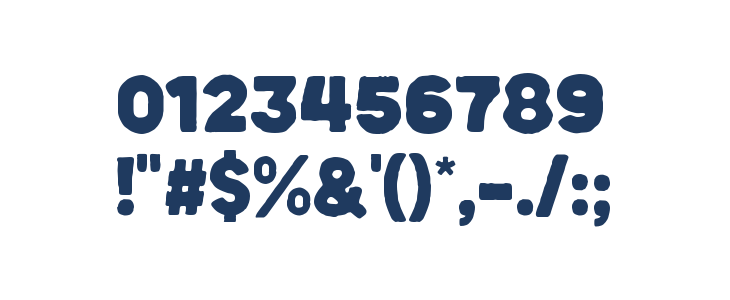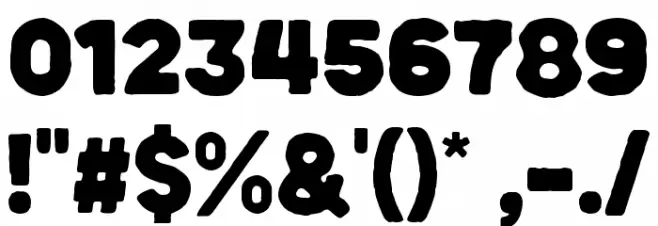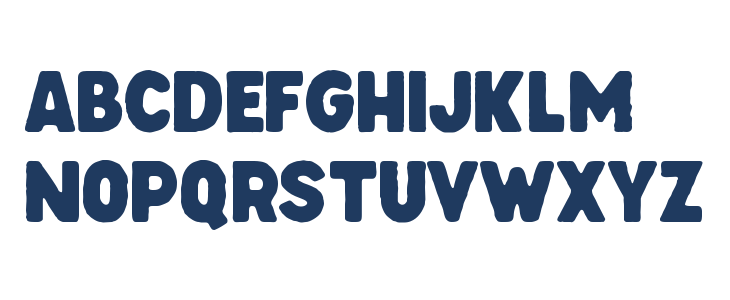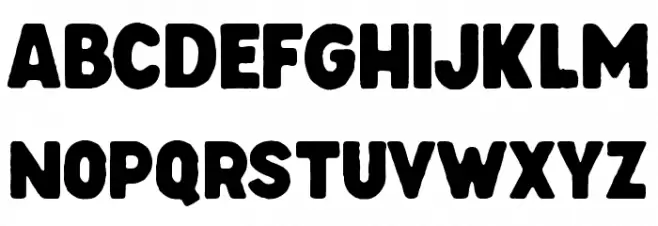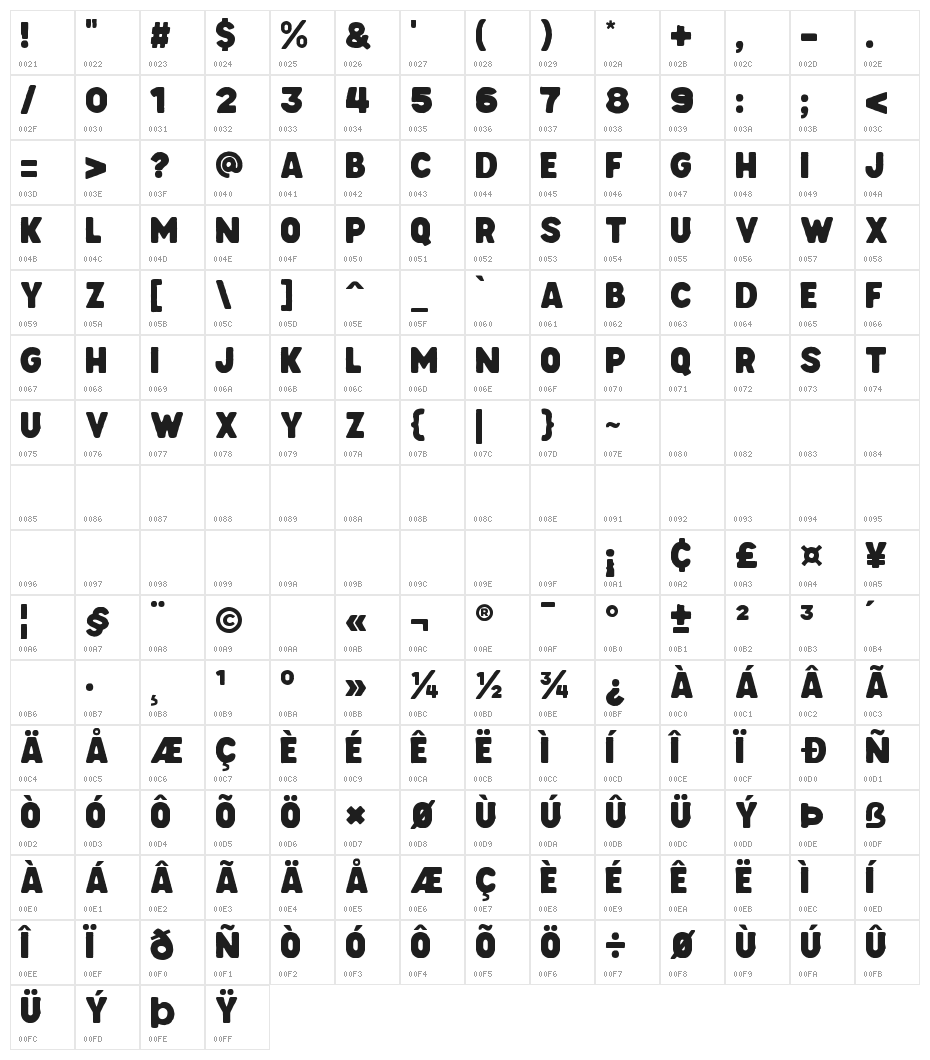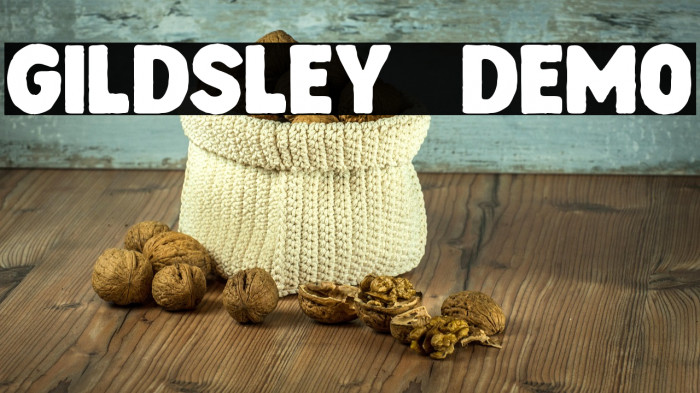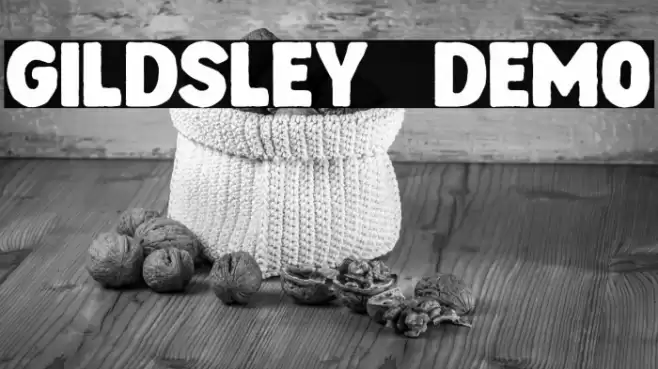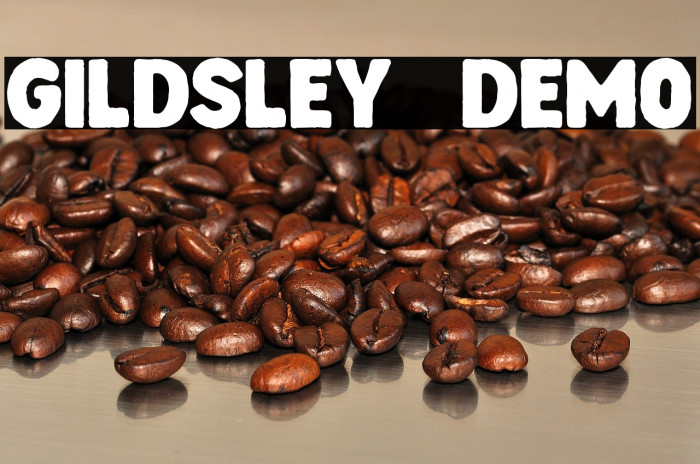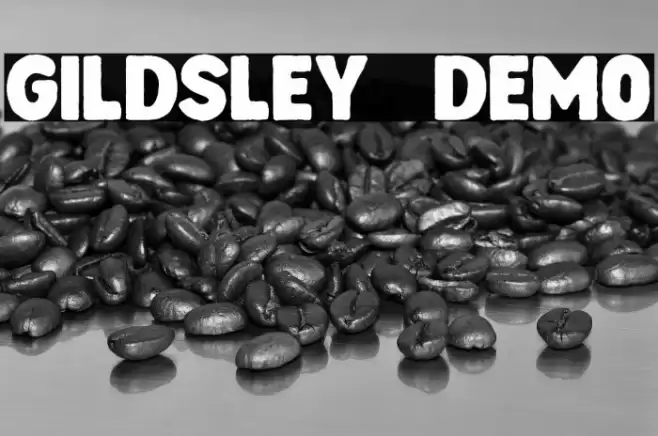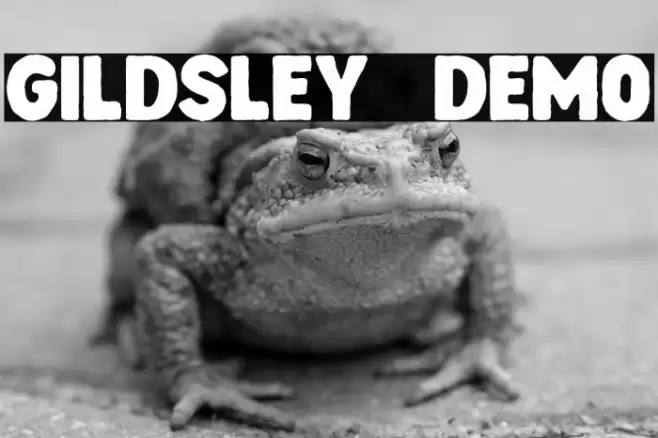
Gildsley DEMO Font
Gildsley DEMO Description
A bold, playful sans-serif font with rounded edges and irregular, hand-drawn shapes, giving it a lively and informal appearance. The characters are thick and closely spaced, with a consistent stroke width and a slightly uneven baseline.
| Overall Style | Decorative, Playful, Hand-drawn |
| Use Case | Headlines, Posters, Logos, Display text |
| Proposed Projects | ChildrenΓ’β¬β’s books, posters, branding for playful or creative products, event flyers, social media graphics. |